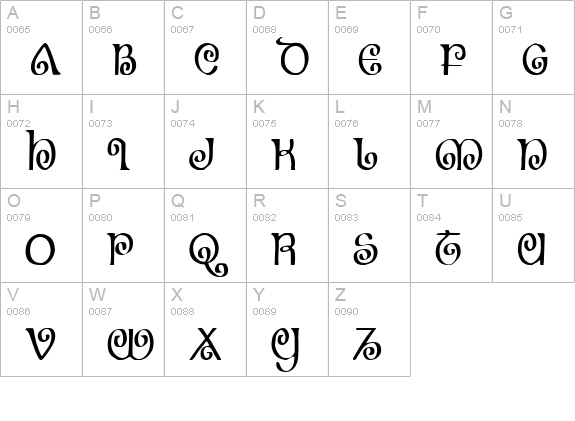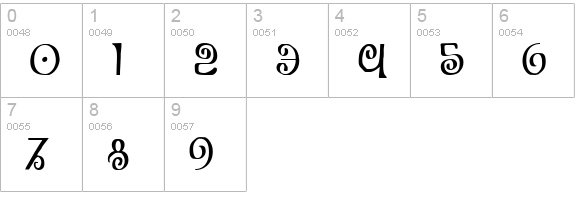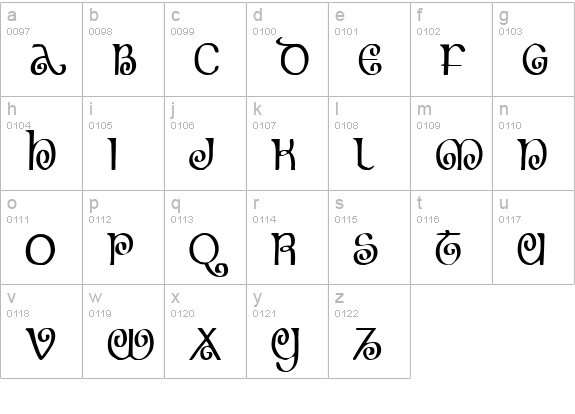
The Shire Condensed Font Details
The Shire Condensed is a distinctive, condensed-width variant in the The typeface family \xE2\x80\x94 well suited to design and typography projects.
The Shire Condensed font exudes a sense of whimsical charm and rustic elegance, making it the perfect choice for projects that require a touch of fantasy and nostalgia. With its clean lines and slender design, this font is both versatile and easy to read, making it ideal for a wide range of creative endeavors. Whether you're designing a wedding invitation, crafting a vintage-inspired logo, or creating a cozy book cover, The Shire Condensed font will add a touch of magic to your projects. Its classic yet contemporary aesthetic makes it a timeless choice that will stand the test of time. Best of all, The Shire Condensed font is completely free to download at FontsMarket.com, allowing you to add this enchanting typeface to your design toolkit without breaking the bank. Embrace the whimsy and charm of The Shire Condensed font and watch your designs come to life with a touch of fantasy and flair.